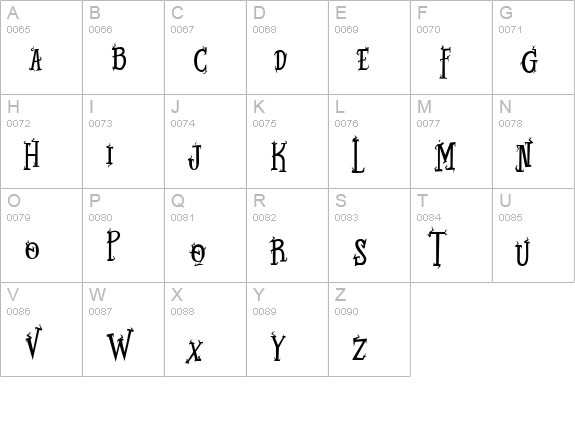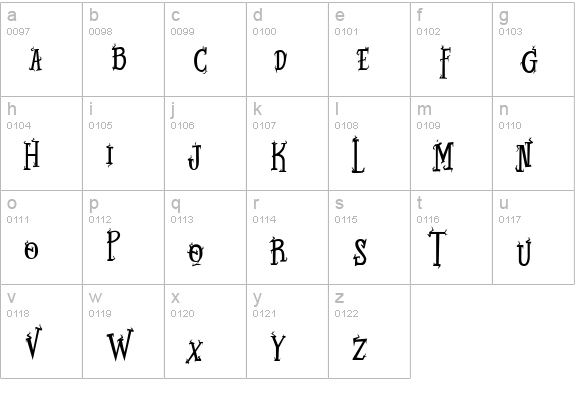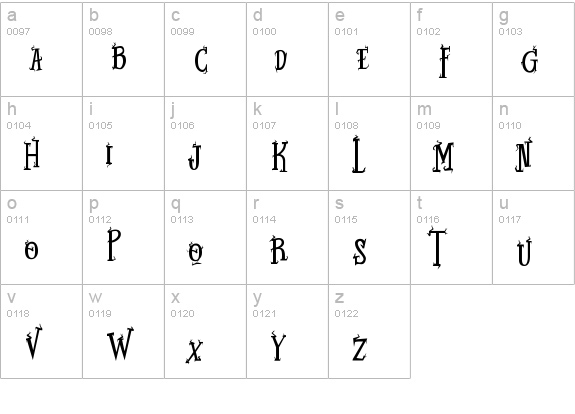
Twig Alleric Font Details
Twig Alleric is a demo font in the Theme > Horror category, designed by HydricDesign. It has been downloaded 74 times and is available for Windows, Mac and Linux.
Introducing Twig Alleric, a whimsical and playful font that is perfect for adding a touch of charm to your projects. With its unique twig-inspired design, this font is sure to stand out and capture attention. Whether you're working on a nature-themed project or just want to add a bit of organic flair, Twig Alleric is the perfect choice.